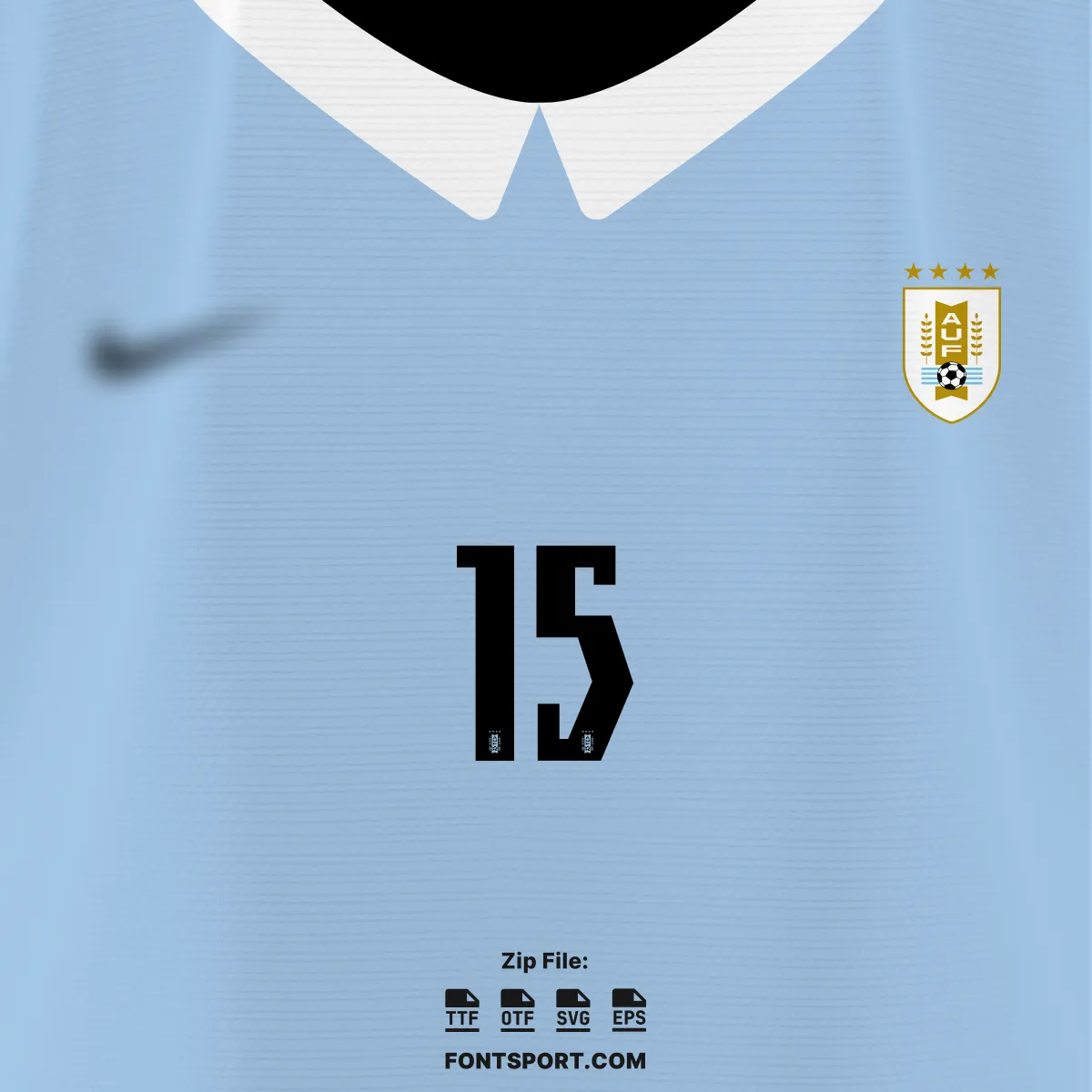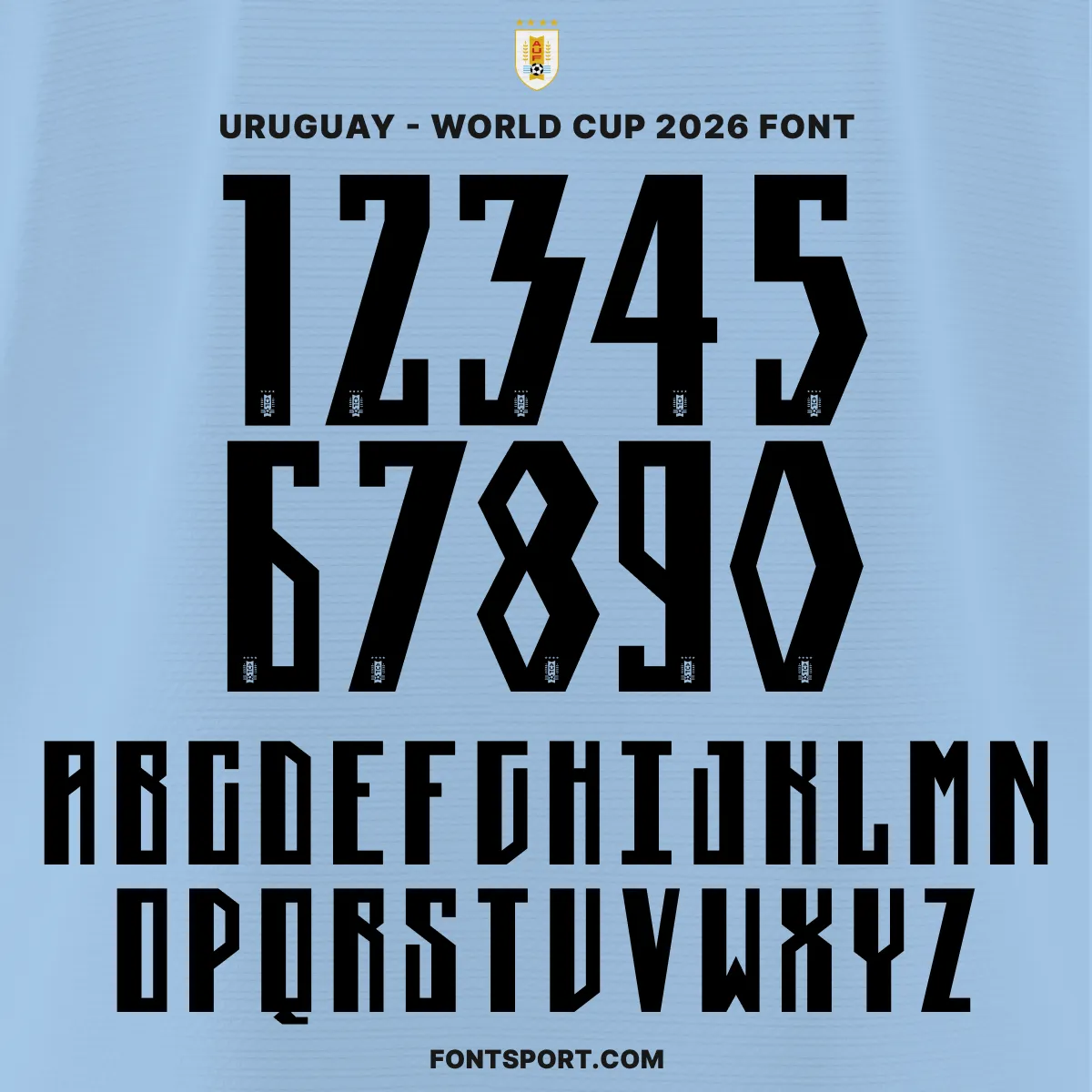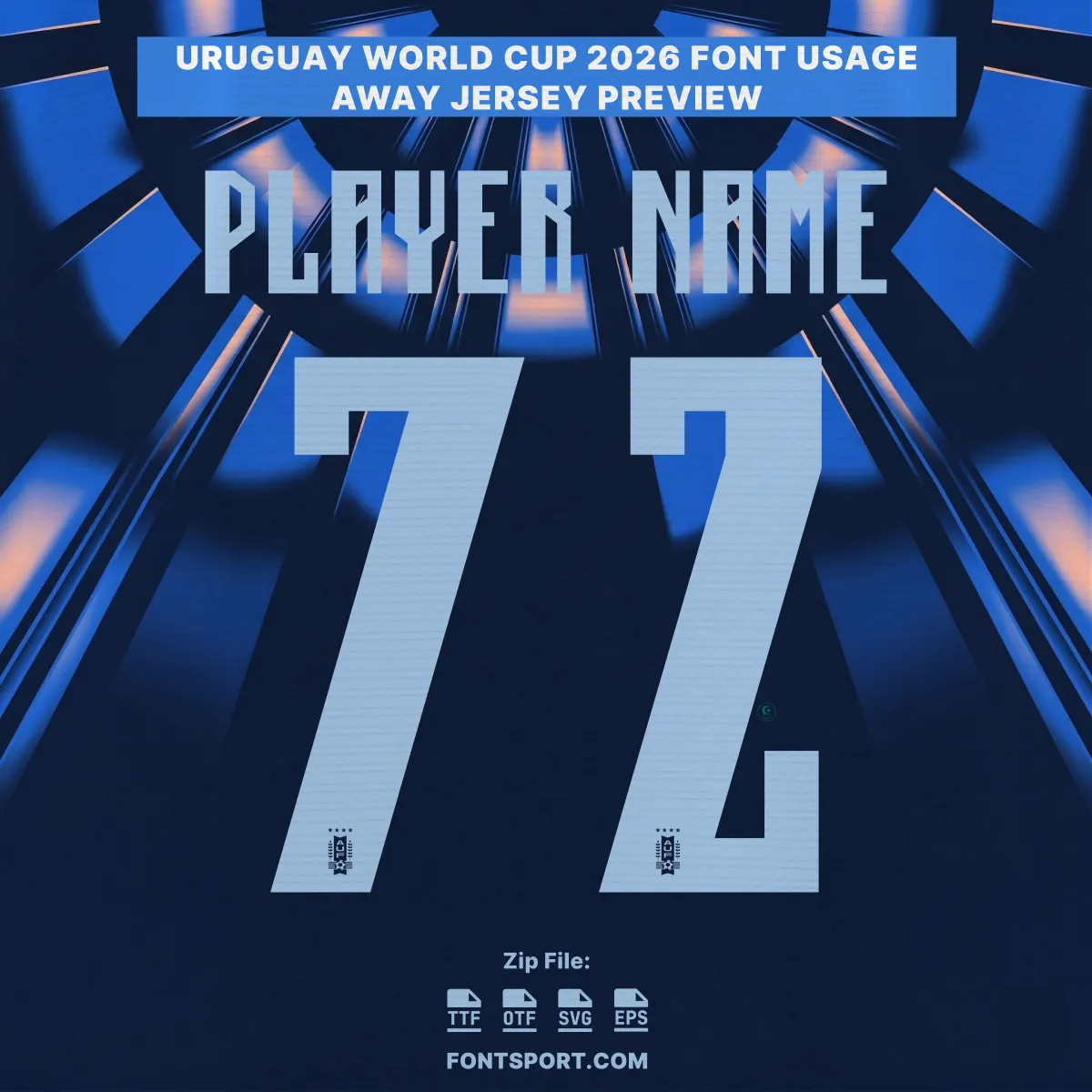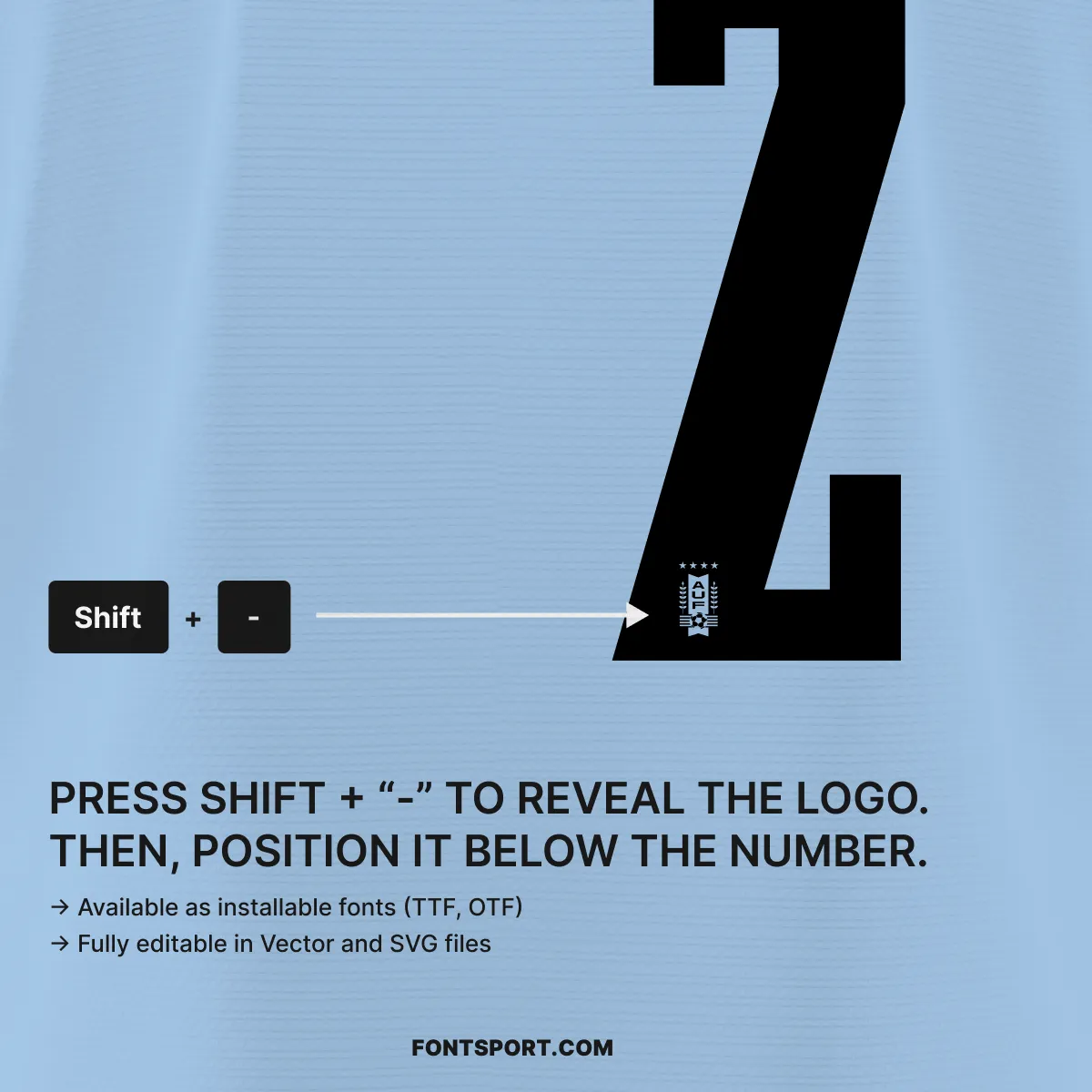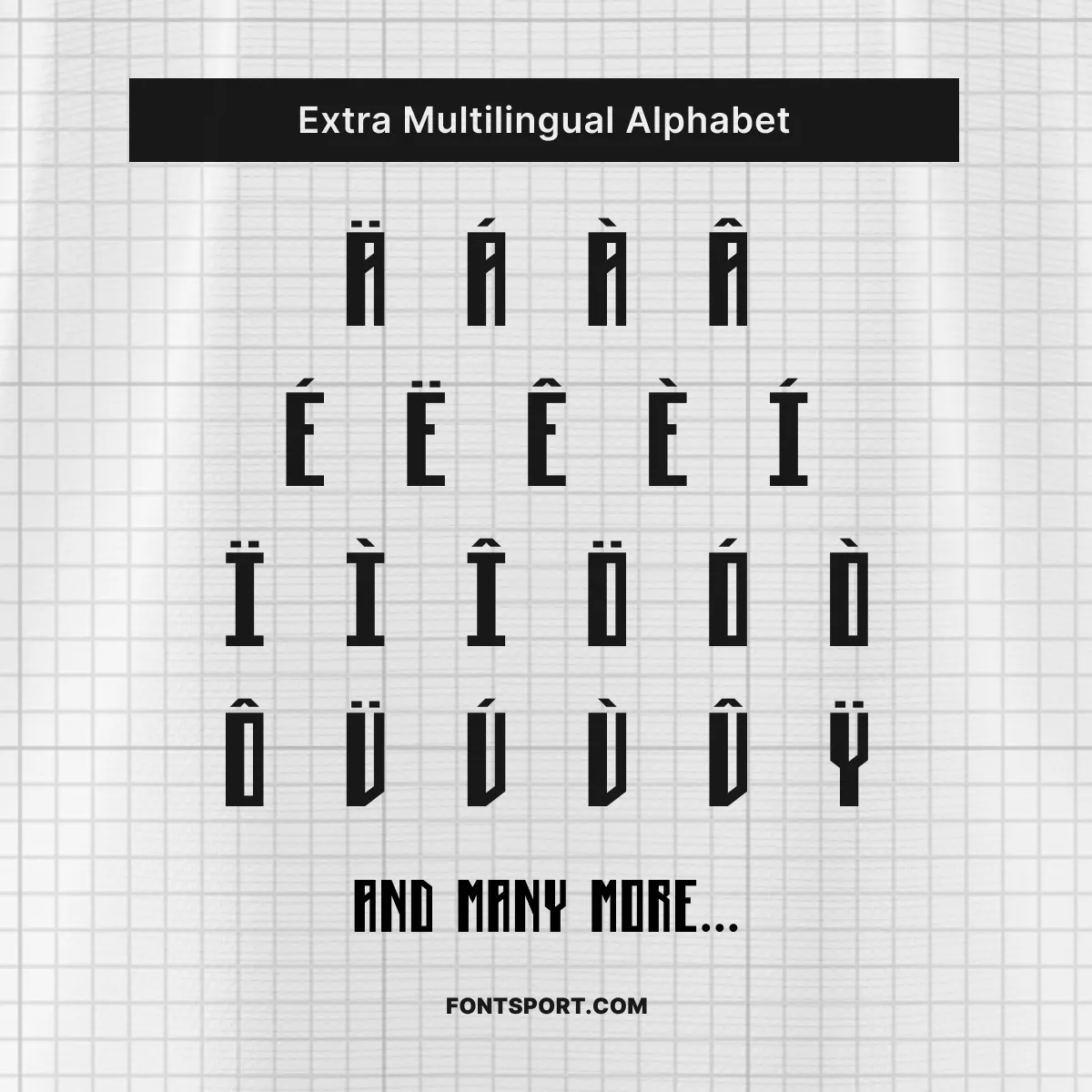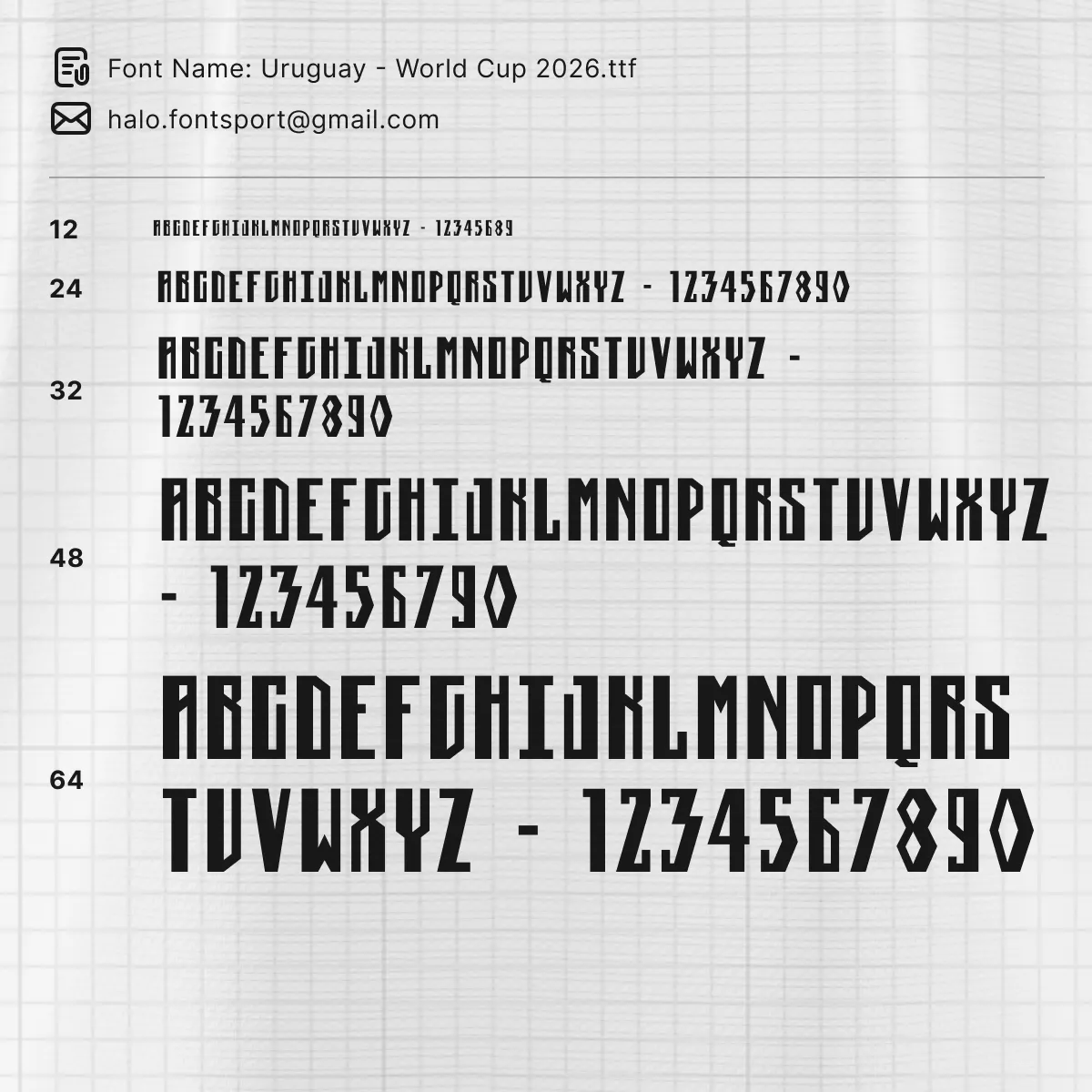
Uruguay World Cup 2026 Font Kit – Authentic FIFA World Cup Typeface
Few national teams carry a football legacy as profound as Uruguay’s. The Uruguay World Cup 2026 Font Kit is a faithful recreation of the lettering and number style worn by La Celeste in their 2026 FIFA World Cup campaign — studied character by character to match the proportions, stroke weight, and spacing seen on the pitch under Marcelo Bielsa’s command.
This season marks a compelling new chapter for Uruguay. Furthermore, with the tournament hosted across the United States, Canada, and Mexico, the four-time world champions arrive carrying the weight of history and a squad built for the modern game. The font kit captures that identity in every glyph.
Key Visual Identity of the Font
Typography Style
The Uruguay 2026 typeface carries a commanding, condensed structure with bold upright strokes and angular terminals. It reflects the spirit of garra charrúa — compact, fearless, and built to hold its presence at any scale. The characters are designed for maximum legibility on the pitch, while retaining a strong aesthetic suited to graphic design contexts.
Number Design
The numerals are particularly distinctive. Each digit features a geometric confidence — thick stems, precise cuts, and a rhythm that holds across single and double-digit numbers alike. As a result, the number set is especially well-suited for shirt mockups, where visual weight and readability matter most.
Home & Away Colour Application
The kit works across both Uruguay’s home (sky blue / Celeste) and away (deep navy with electric blue) applications. In addition, the font’s weight ensures it renders cleanly in black, white, or light-coloured treatments across all jersey backgrounds.
• ✅ Full uppercase A–Z & numbers 0–9 in Uruguay’s 2026 World Cup style
• ✅ Multilingual Latin alphabet with diacritics for international squad name support
Uruguay World Cup 2026 font kit – complete A–Z alphabet and 0–9 number specimen sheet